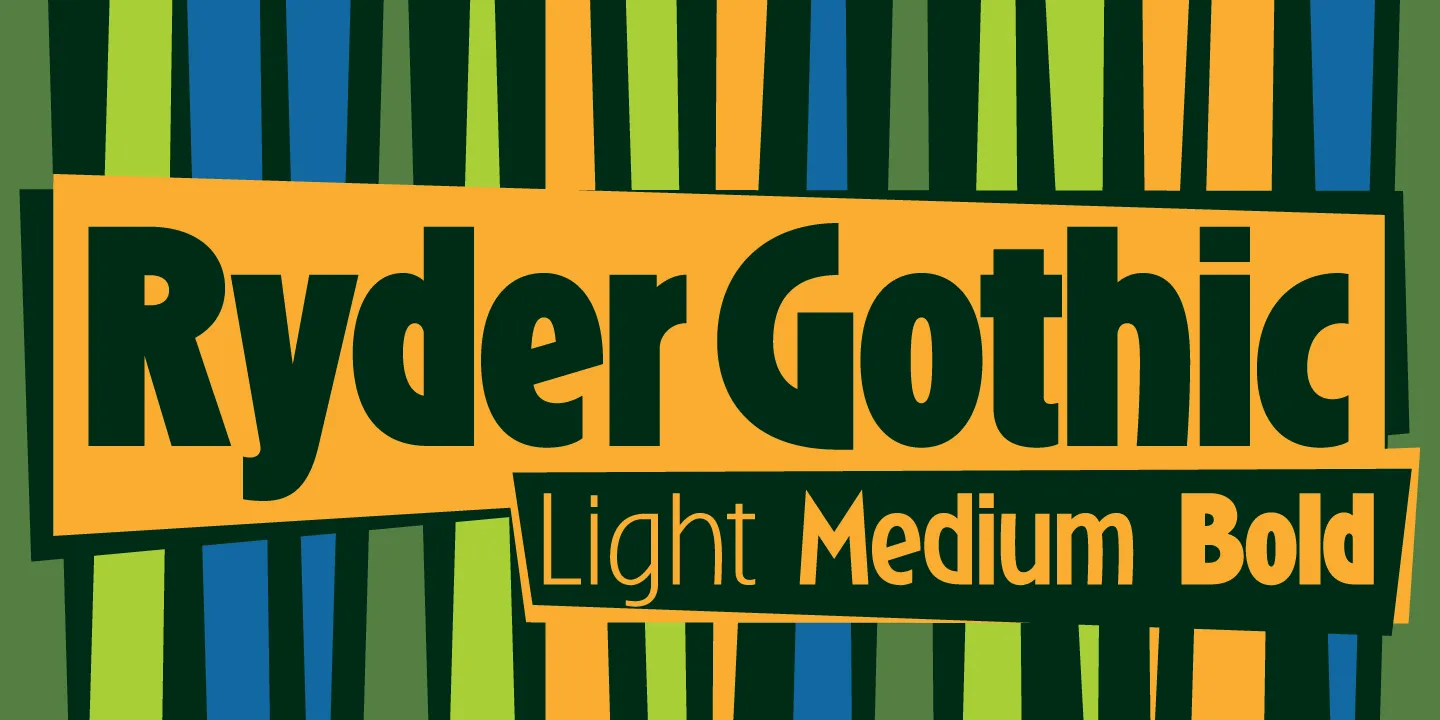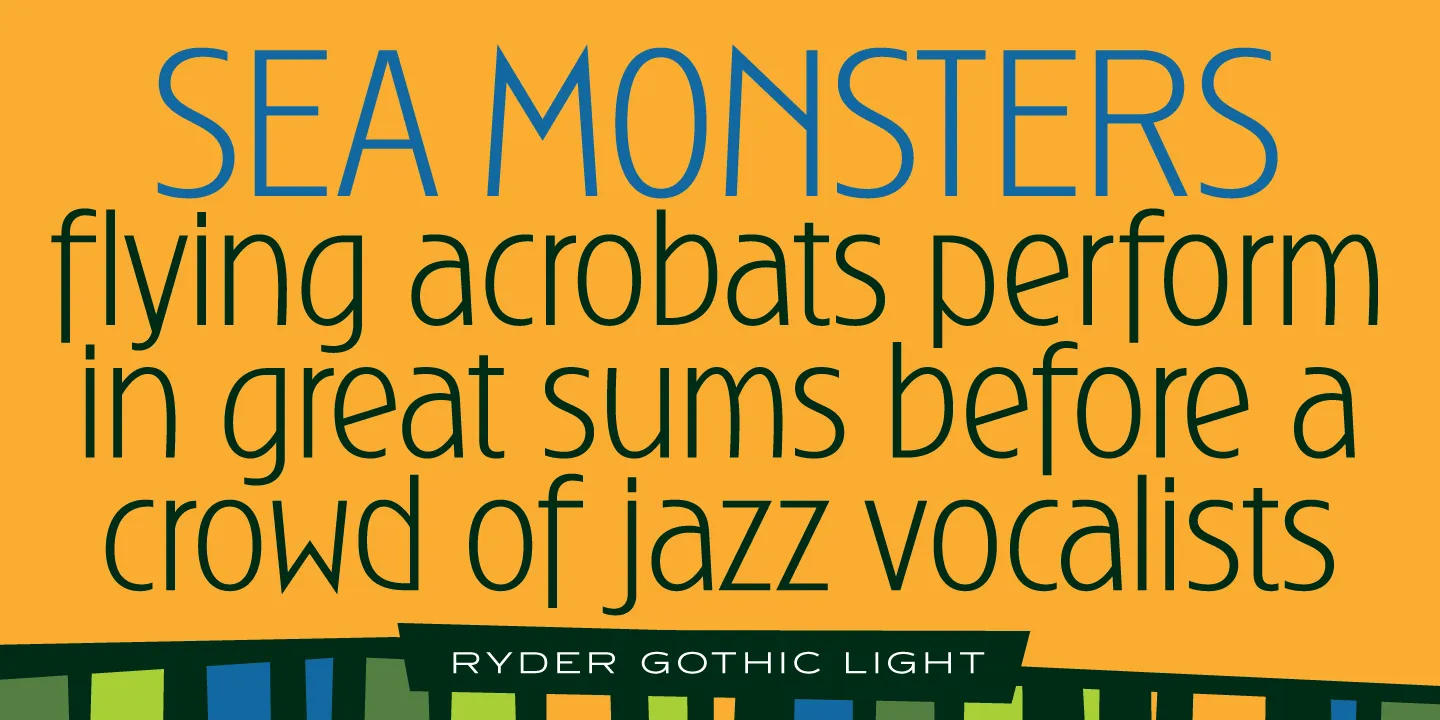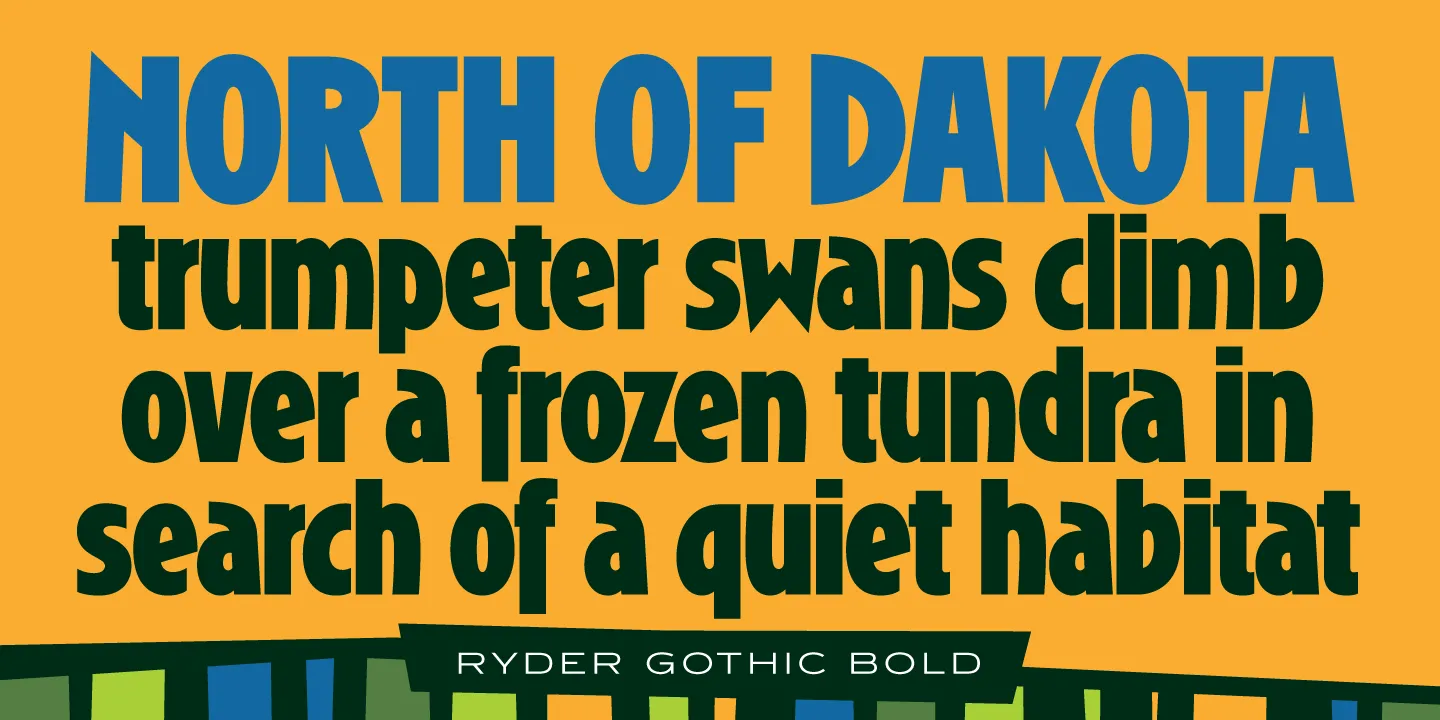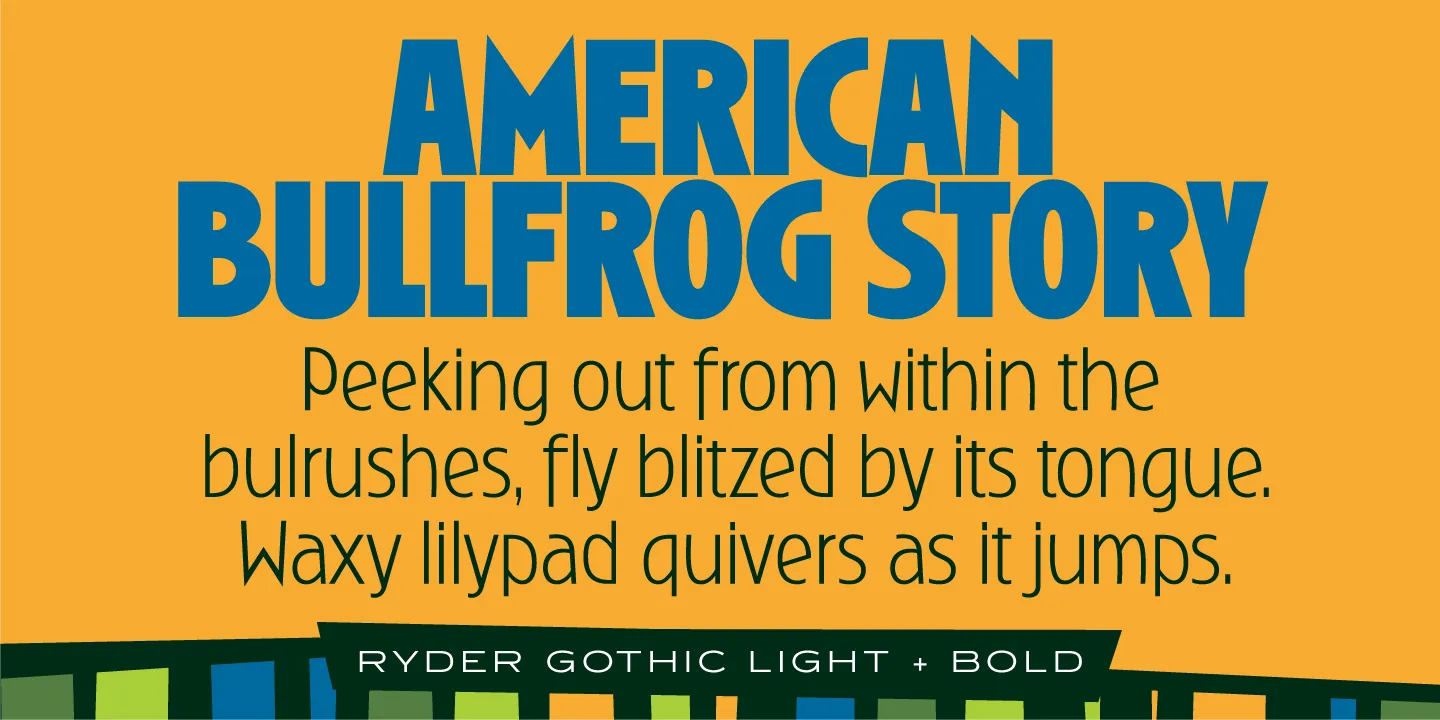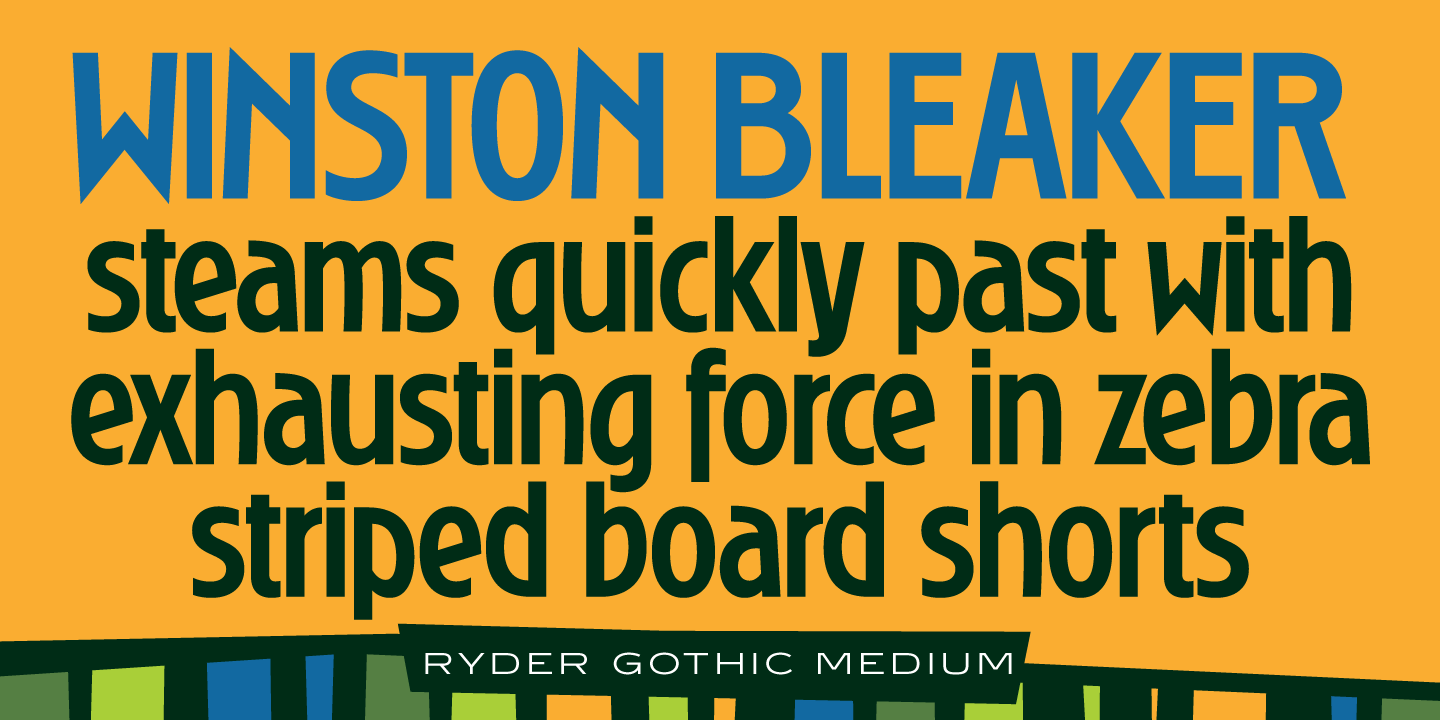
Ryder Gothic Font Family
Ryder Gothic is a condensed sans serif font family designed by Steve Jackaman (ITF) and Ashley Muir 2010. The family is a revival based on the Harry Winters’ ‘Roslyn Gothic’ typeface released by Visual Graphics Corporation (VGC) in 1972. Jackaman and Muir added a new light weight and several alternate glyphs. Ryder Gothic has a casual, modern, and/or playful feel that is right at home in all sizes.